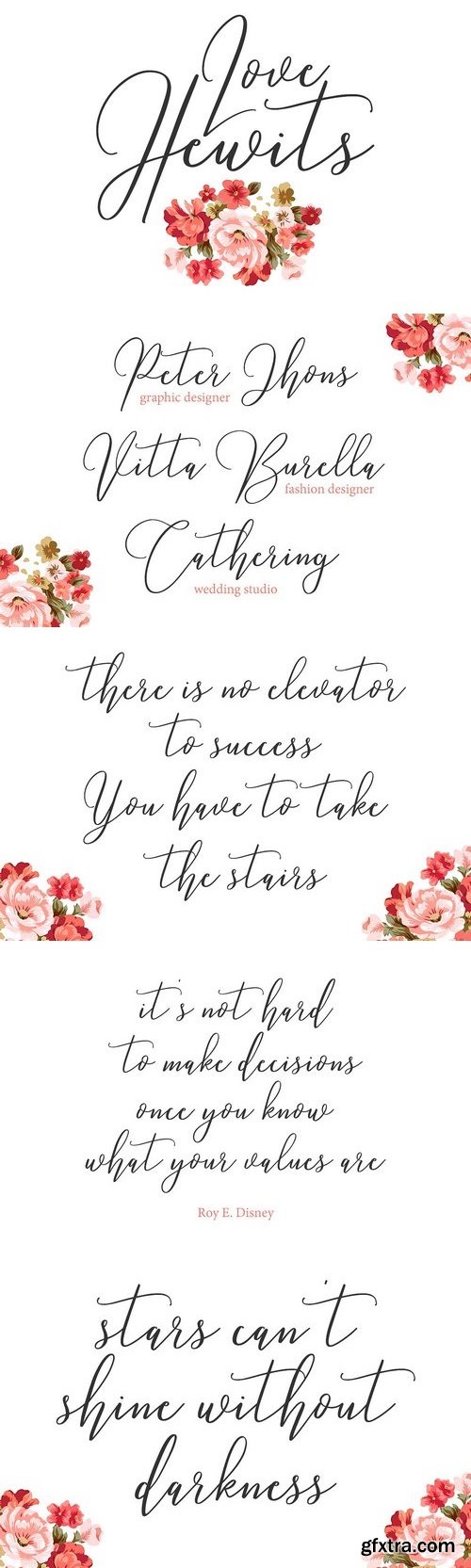
Give your designs an authentic handcrafted feel. "Love Hewits" is perfectly suited to signature, stationery, logo, typography quotes, magazine or book cover, website header, clothing, branding, packaging design and more. License: This font included for personal, commercial use, multiple projects, behalf of a client. Fonts may be printed on to products that are subsequently sold, websites and within website design. Graphics may be printed on to products that are subsequently sold when an effort is made to use them as part of a new design including a variation of other graphics or fonts. This font available on OTF and TTF formats.